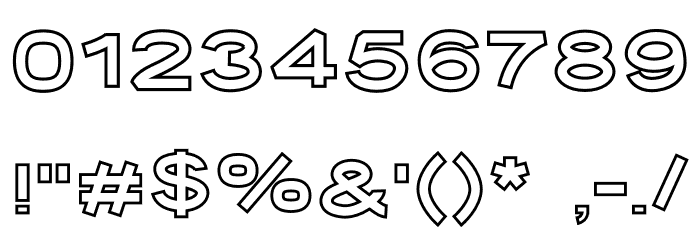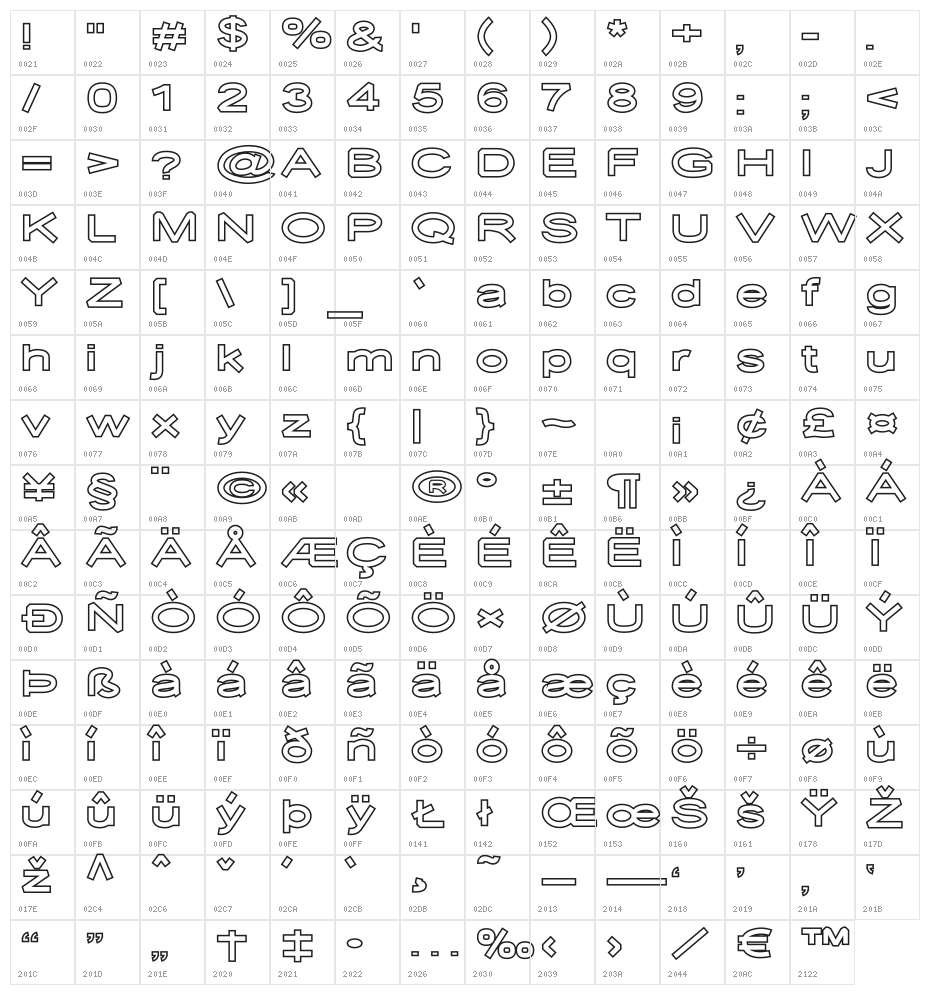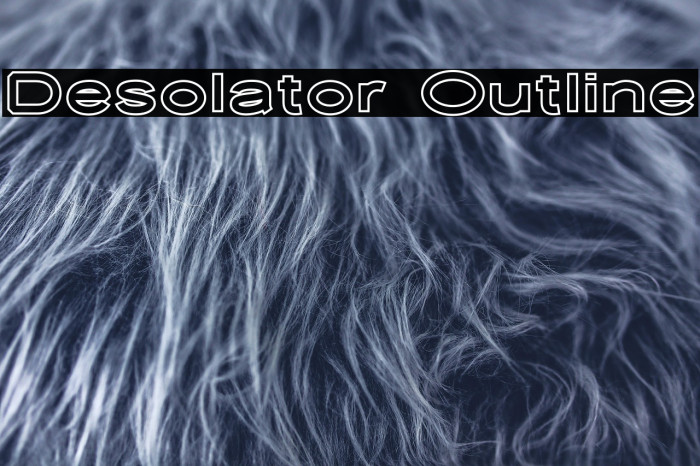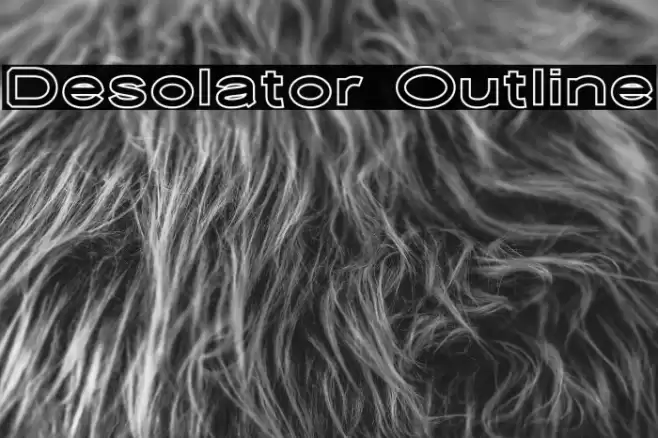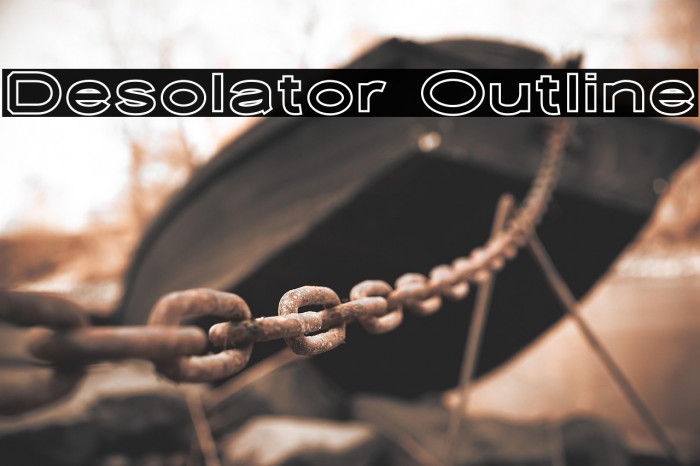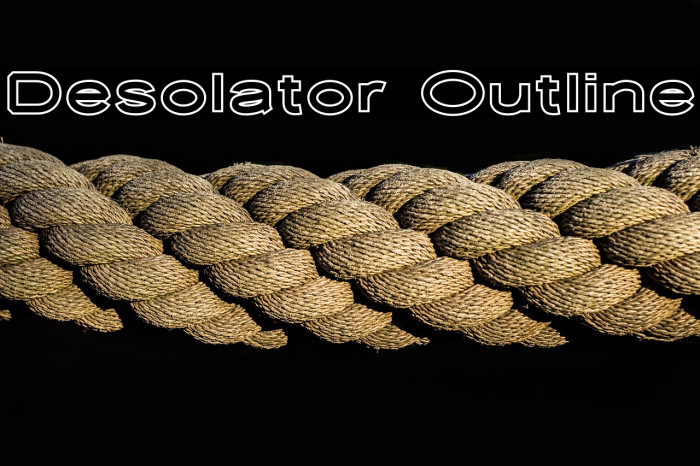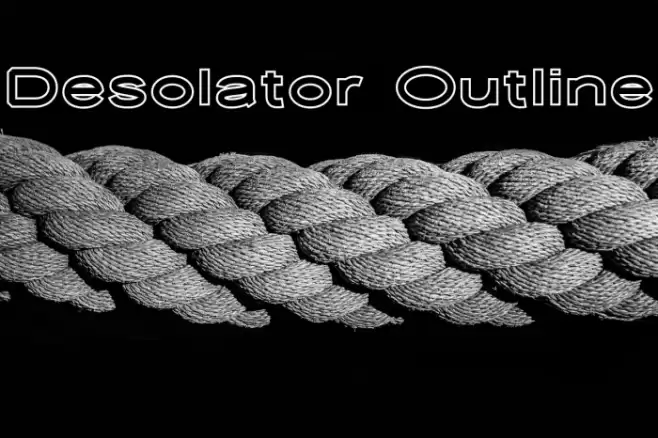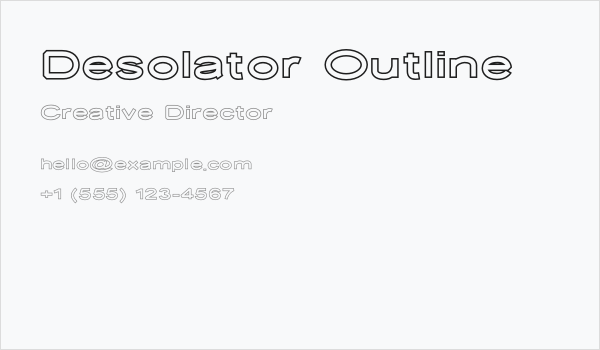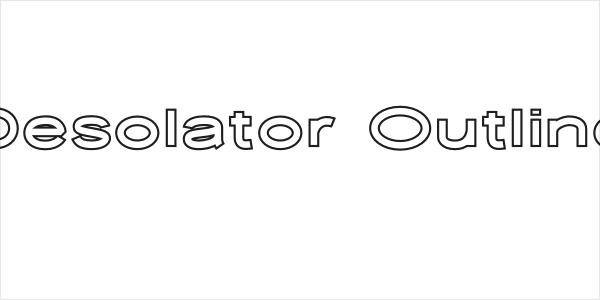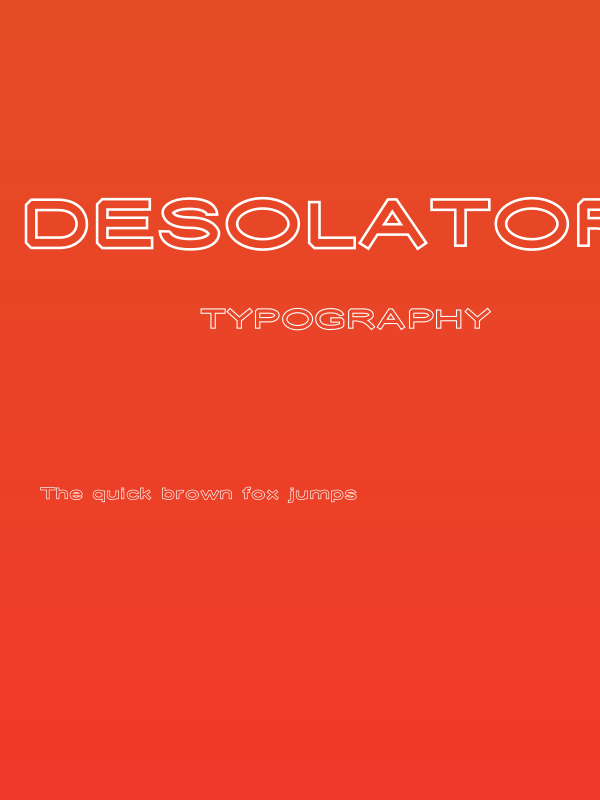
Desolator Outline Font
Desolator Outline Description
This font features a bold, geometric sans-serif style with a distinct outline effect. The characters are constructed with clean, straight lines and precise curves, creating a modern and futuristic appearance. The uppercase and lowercase letters maintain a consistent height, contributing to a uniform look. The numbers and special characters follow the same design principles, ensuring a cohesive visual identity across all elements. The outline adds a unique dimension, making it stand out in various design contexts.
| Proposed Projects | Ideal for branding, posters, headlines, and digital media where a modern and striking appearance is desired. |